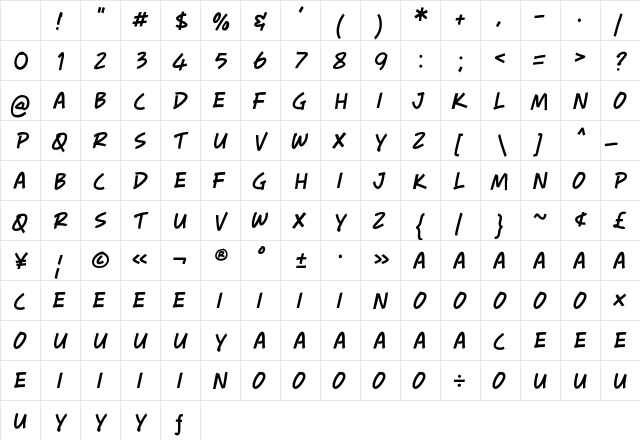
Complete Super Black Marker Regular glyph index. Displaying only characters natively supported by Super Black Marker Regular font.
Super Black Marker is a composed and adaptable typeface that performs quietly and consistently across a wide range of design contexts.
Pro Tip: Use Super Black Marker in both headline and body roles to test its range before committing to a single application.